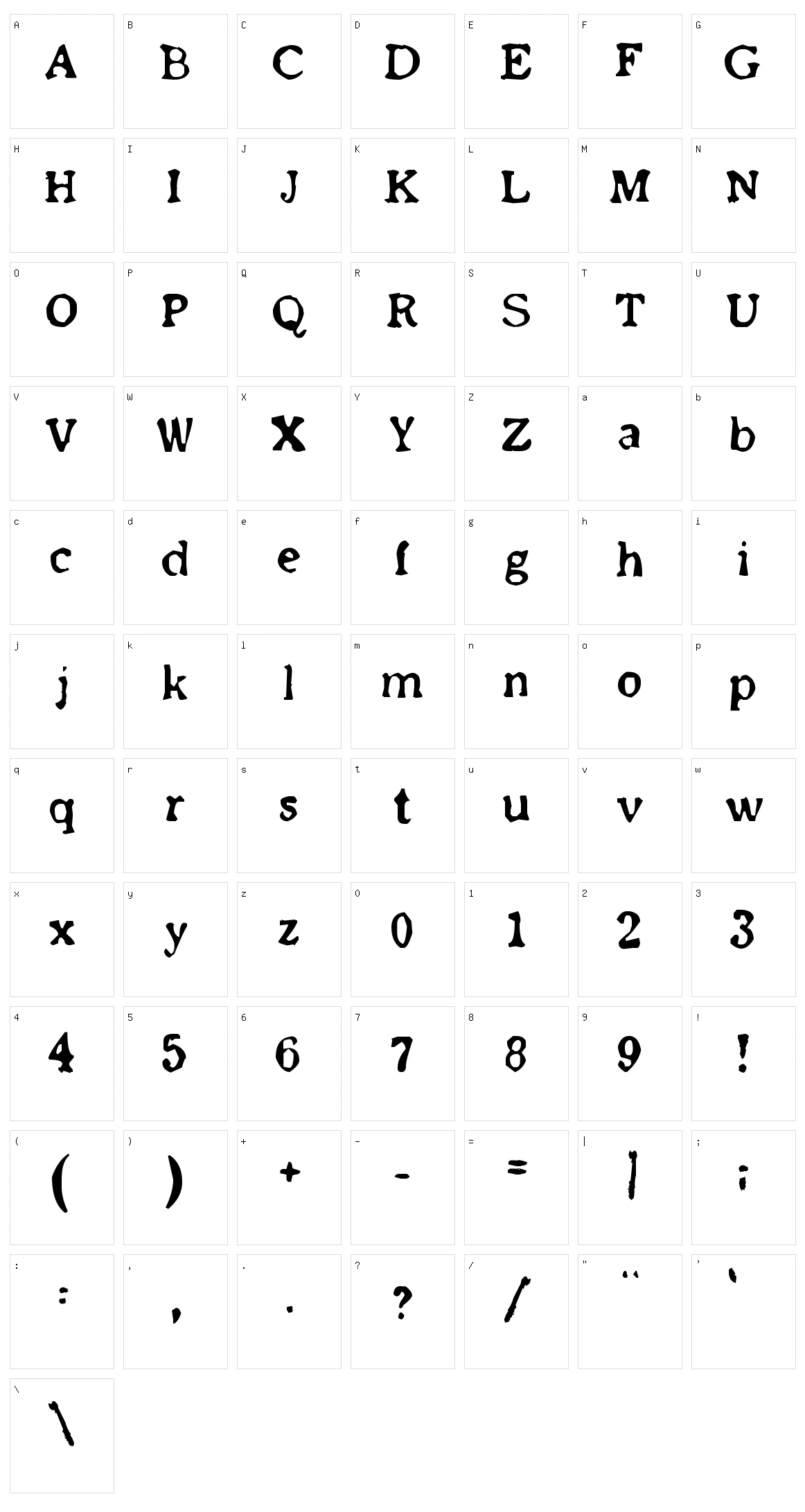
The free font Old Newspaper is carefully designed by M-Dfonts, showcasing a thoughtful balance of creativity and usability and falls under the Eroded font style. When you download the ZIP file, it contains only 112.16 KB of font files, making it lightweight and quick to download. Please review the license details below to understand permitted usage and distribution rights. If license information is not available, we recommend using this font for personal projects only or contacting the author directly for commercial usage permissions.